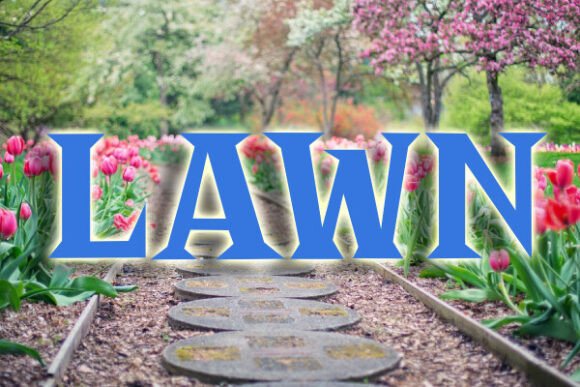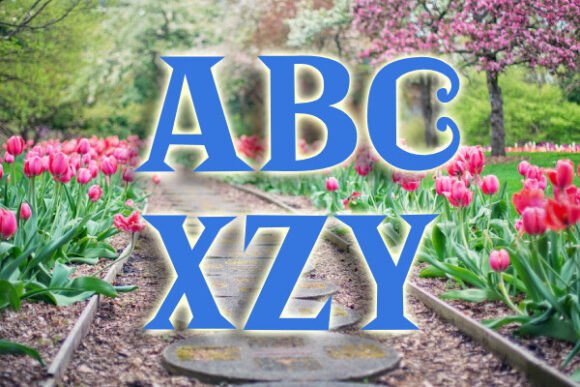
Gardener Font: Elevate Your Designs with a Stylish Serif Font
Are you a designer or crafter looking to take your designs to the next level? Look no further than the Gardener font, a stylish serif font that is sure to impress. With its unique blend of classic and modern elements, Gardener is the perfect choice for a wide range of design projects, from posters and flyers to brochures and more.
What is Gardener Font?
Gardener font is a carefully crafted serif font that is designed to add a touch of elegance and sophistication to your designs. Its unique lettering style combines traditional serif elements with a modern twist, making it perfect for designers who want to create visually striking designs that stand out from the crowd.
Key Features of Gardener Font
So, what makes Gardener font so special? Here are just a few of its key features:
- Unique lettering style: Gardener font features a distinctive lettering style that blends classic serif elements with a modern twist.
- Highly legible: Despite its unique style, Gardener font is highly legible, making it perfect for use in a wide range of design projects.
- Versatile: Gardener font is incredibly versatile, and can be used in everything from posters and flyers to brochures and more.
- Easily customizable: Gardener font is easy to customize, allowing you to tailor it to your specific design needs.
How to Use Gardener Font in Your Designs
So, how can you use Gardener font in your designs? Here are a few ideas to get you started:
- Posters: Use Gardener font to create eye-catching posters that grab attention and communicate your message effectively.
- Flyers: Add a touch of elegance and sophistication to your flyers with Gardener font.
- Brochures: Use Gardener font to create visually striking brochures that showcase your products or services.
- Branding: Use Gardener font as part of your brand identity to add a touch of personality and style.
Why Choose Gardener Font?
So, why should you choose Gardener font for your design projects? Here are just a few reasons:
- Unique style: Gardener font offers a unique and distinctive style that will help your designs stand out from the crowd.
- High-quality: Gardener font is a high-quality font that is designed to deliver exceptional results.
Tips for Getting the Most Out of Gardener Font
Here are a few tips for getting the most out of Gardener font:
- Experiment with different sizes: Gardener font looks great in a wide range of sizes, so don’t be afraid to experiment and find the perfect size for your design.
- Pair with other fonts: Gardener font pairs well with a wide range of other fonts, so try combining it with other fonts to create a unique and visually striking design.
- Use it consistently: Use Gardener font consistently throughout your design to create a cohesive and professional look.
In conclusion, Gardener font is a stylish serif font that is sure to take your designs to the next level. With its unique lettering style, high legibility, and versatility, Gardener font is the perfect choice for a wide range of design projects. Whether you’re a designer, crafter, or DIY enthusiast, Gardener font is a must-have font that will help you create visually striking designs that stand out from the crowd.